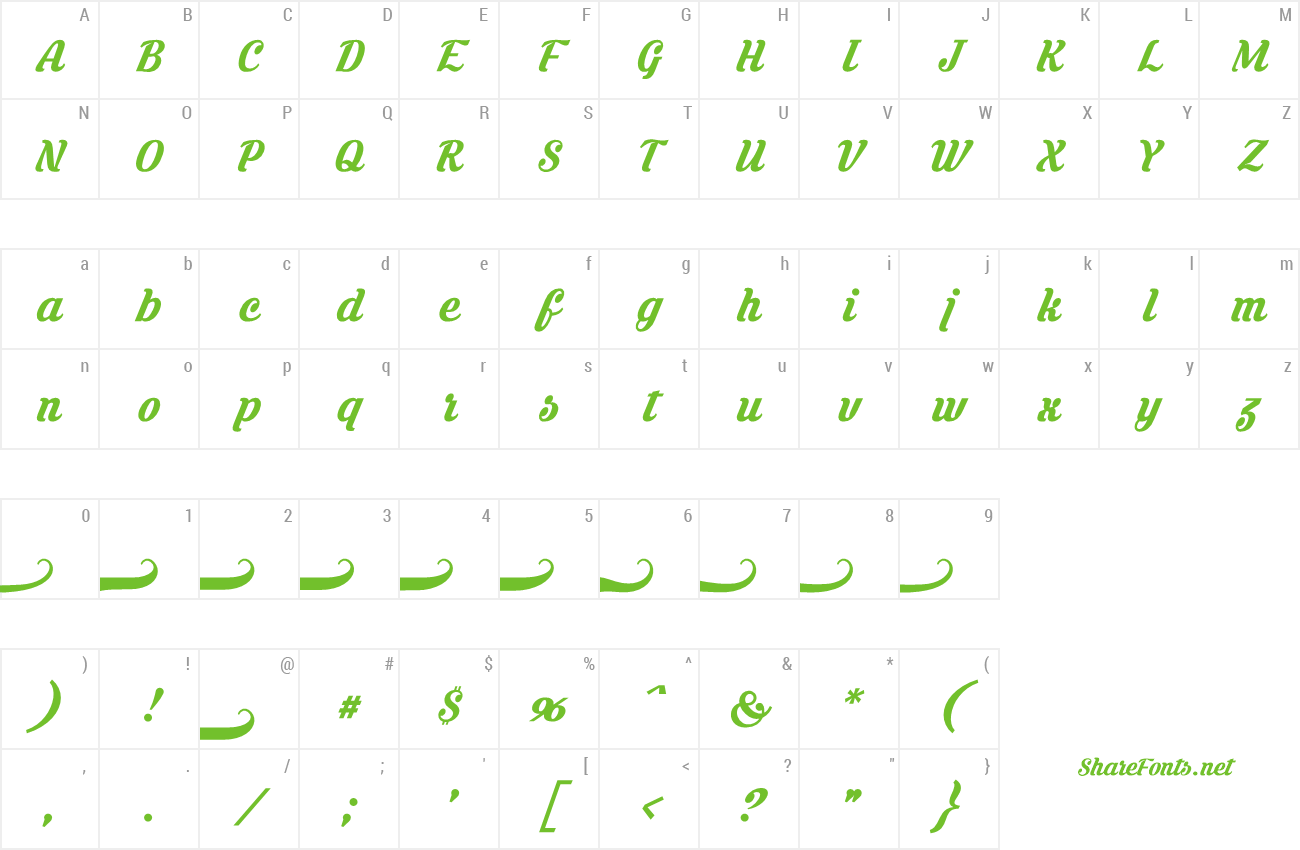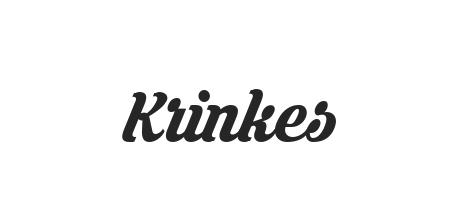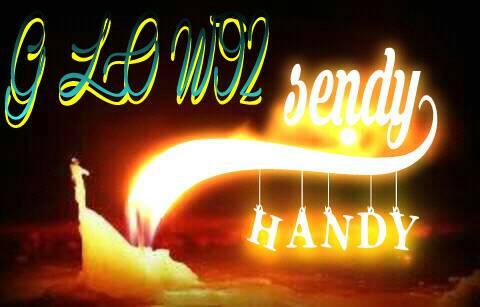
Krinkes regular personal font. Download free fonts for mac windows and linux. Krinkes regular personal use font krinkes family consisting of 2 fonts. The krinkes regular personal use font contains 421 beautifully designed characters. Accents partial accents full euro.
Download the krinkes font by mans grebaeck. About krinkes personal use font. Krinkes regular personal use style. 000krinkesdecorpersonalusekrinkes decor is a.
Krinkes decor personal use. Krinkes regular personal use mans greback website truetype personal use. All fonts are in truetype format. Krinkes personal use is a baseball font family with 2 styles that was created by mans grebaeck in 2015it was added to fontspace on mar 23 2015.